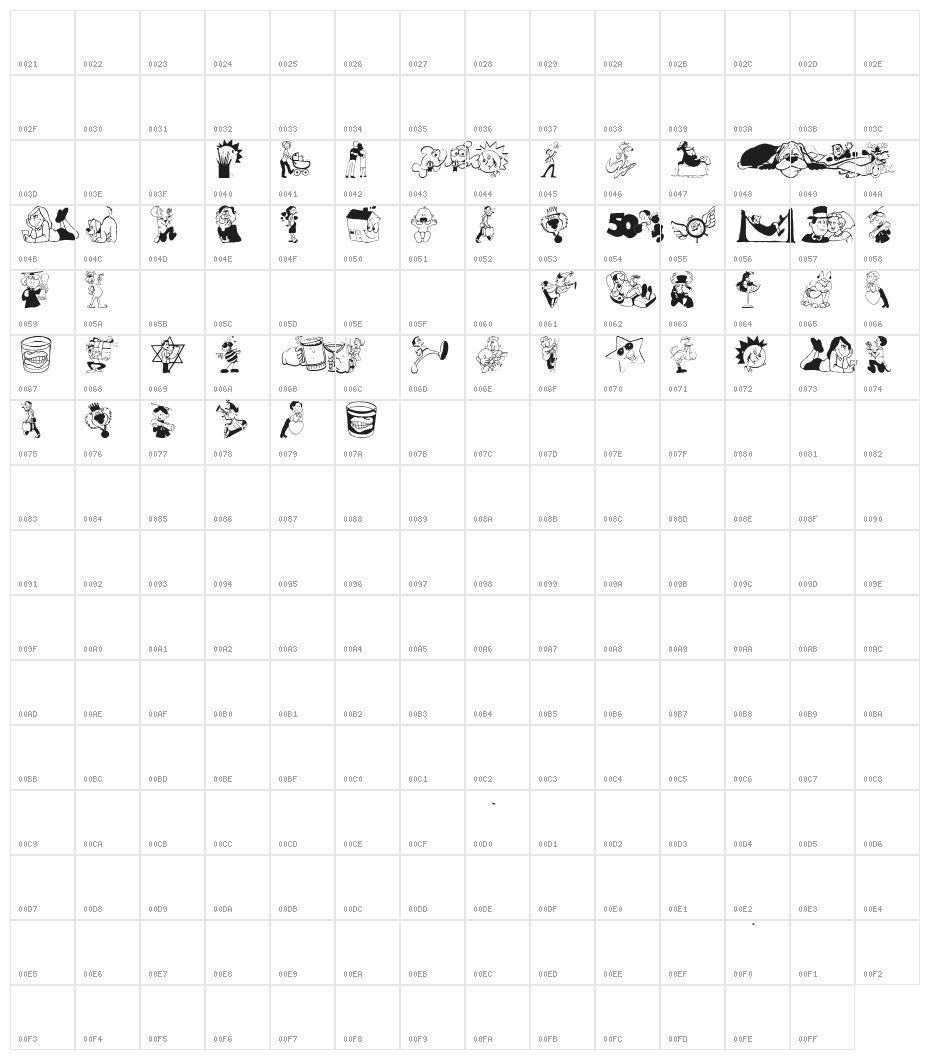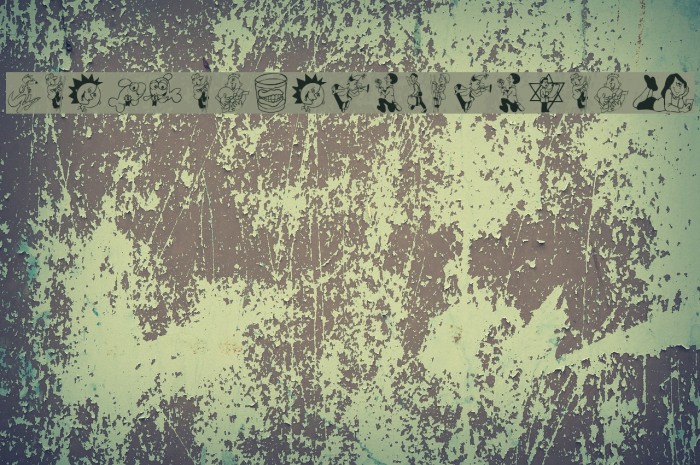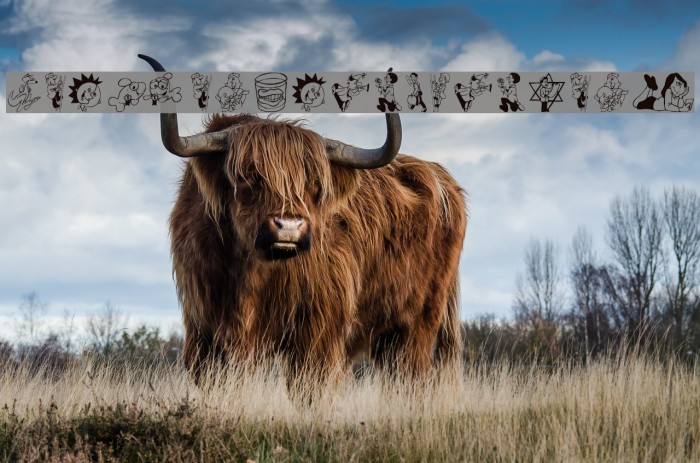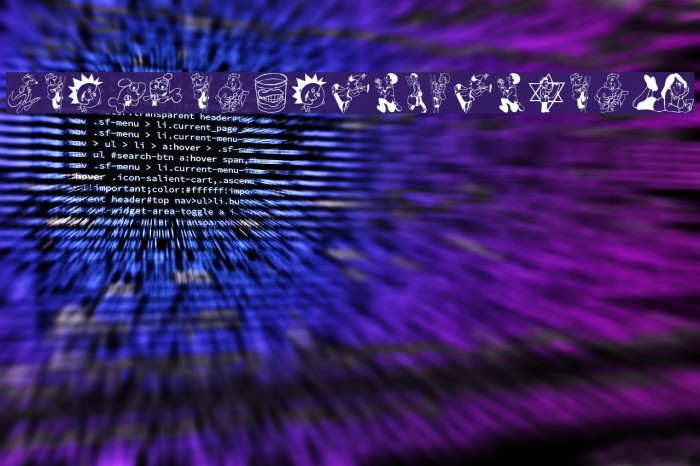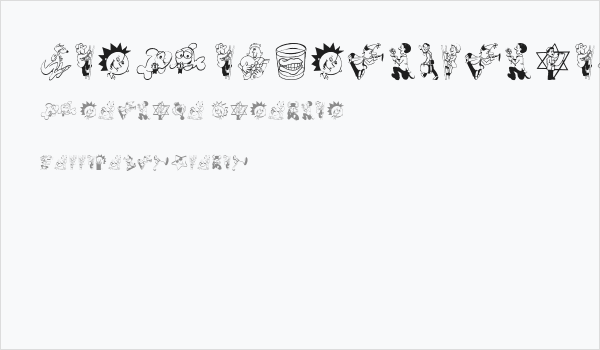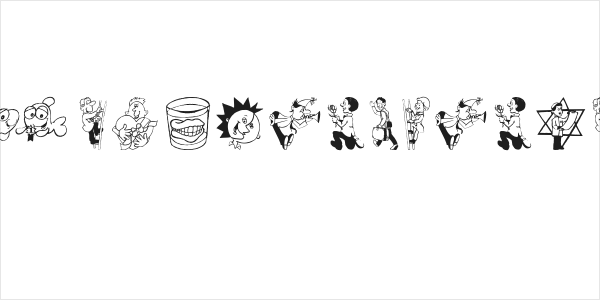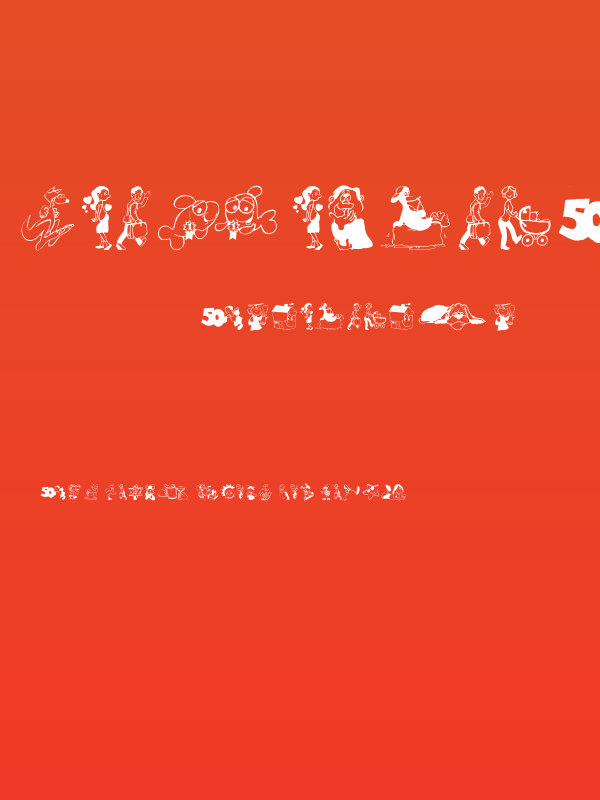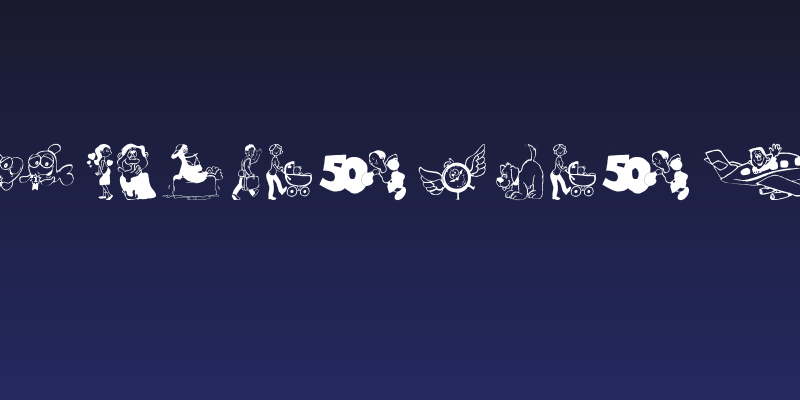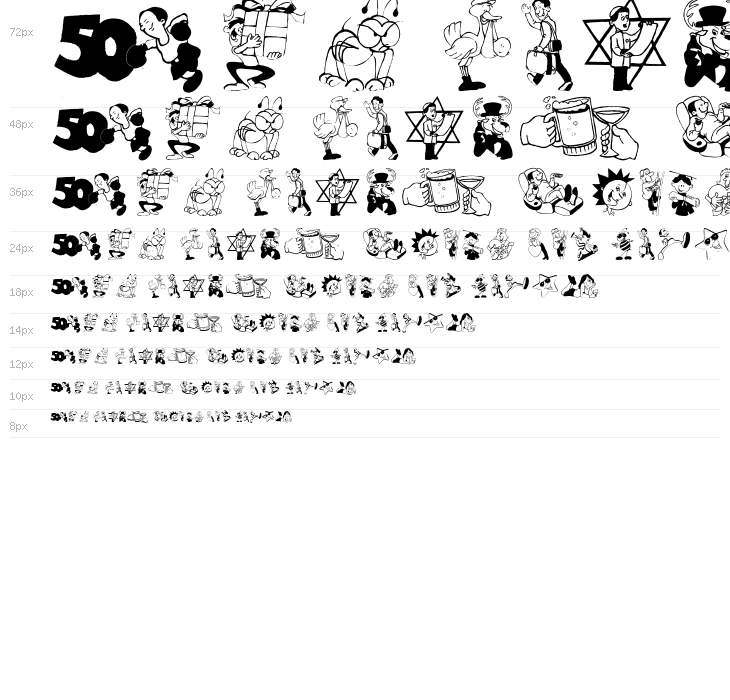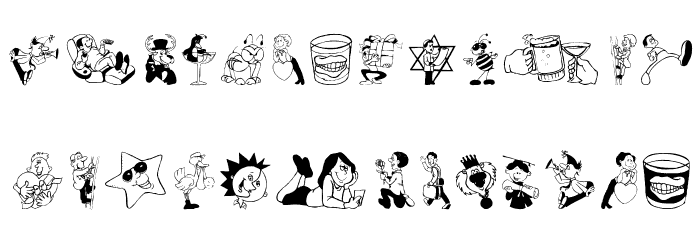
ForCongratulations Font
ForCongratulations Description
FORCONGRATULATIONS UPPERCASE
FORCONGRATULATIONS LOWERCASE
FORCONGRATULATIONS OTHER CHARS
| Name | ForCongratulations |
| Overall Style | Playful, Whimsical, Decorative |
| Use Case | Decorative elements, Themed graphics, Non-textual headings |
| Proposed Projects | Greeting cards, party invitations, children's event flyers, playful branding, scrapbooking, decorative headings. |